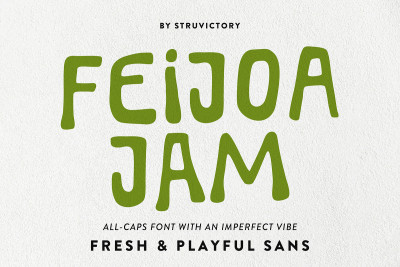
Feijoa Jam Handwritten Playful Sans Font
Feijoa Jam Handwritten Playful Sans stands out as a reliable typeface choice for designers seeking clarity without sacrificing character.